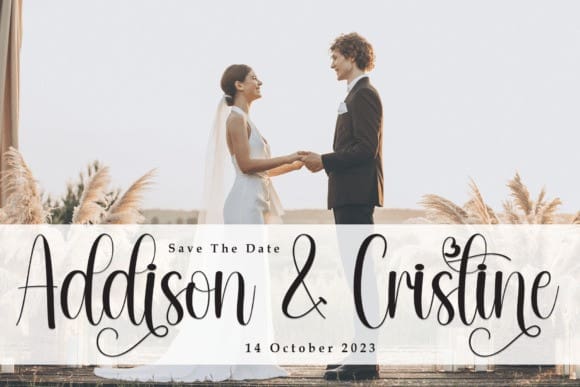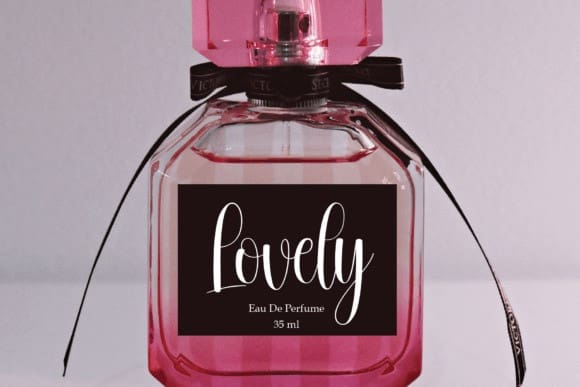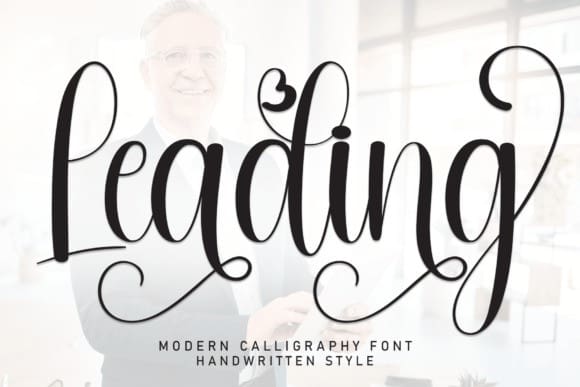
Leading Script Font
Leading Script Font is a versatile and contemporary typeface that takes the lead in design projects. With its clean lines and balanced proportions, this font offers exceptional legibility and readability across various mediums. Whether used for editorial layouts, branding, or digital interfaces, Leading Font effortlessly guides the reader’s eye and elevates the overall aesthetic with its modern appeal.